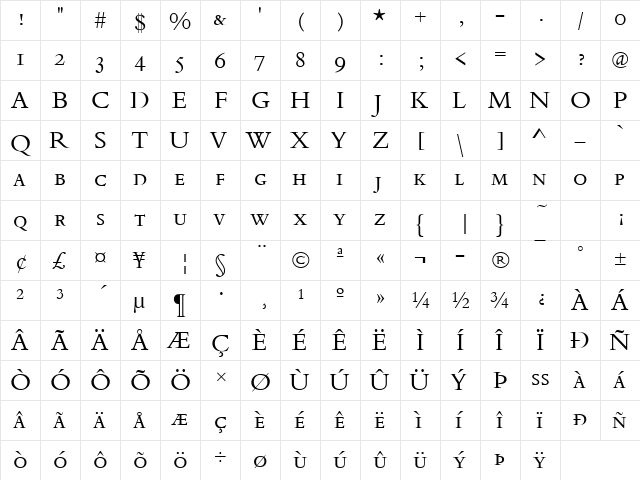
URWBeruiniSCTReg Regular
Design Context for URWBeruiniSCTReg Typeface
URWBeruiniSCTReg offers clean, dependable letterforms without strong stylistic allegiance, making it a practical choice for designers who need flexibility.
Pro Tip: Pair URWBeruiniSCTReg with a font of contrasting weight or personality to build a more expressive typographic hierarchy.